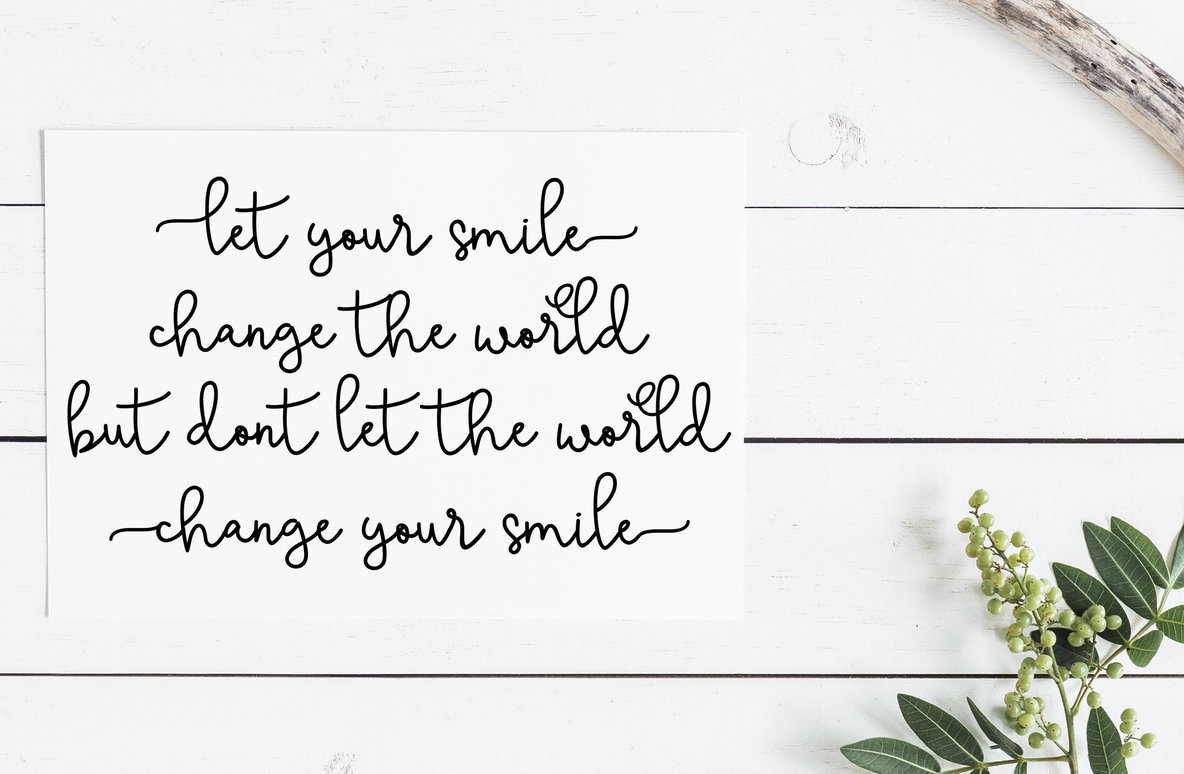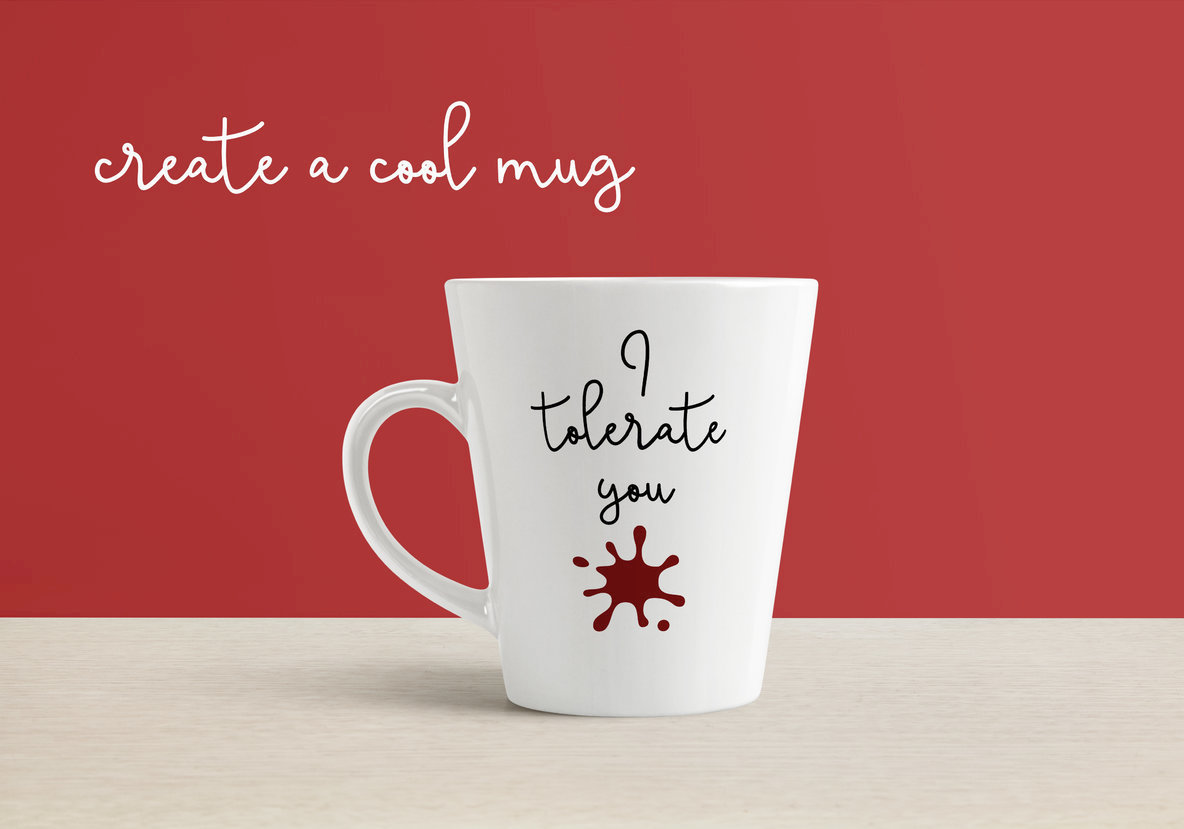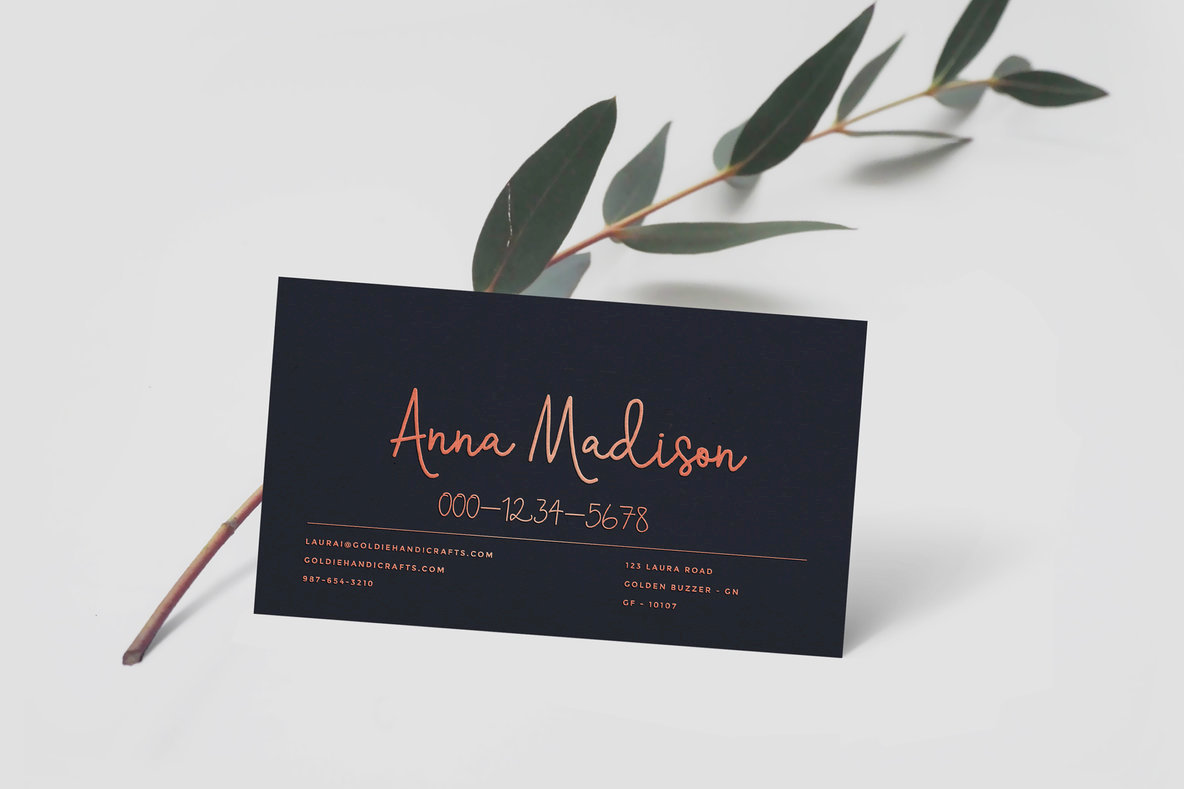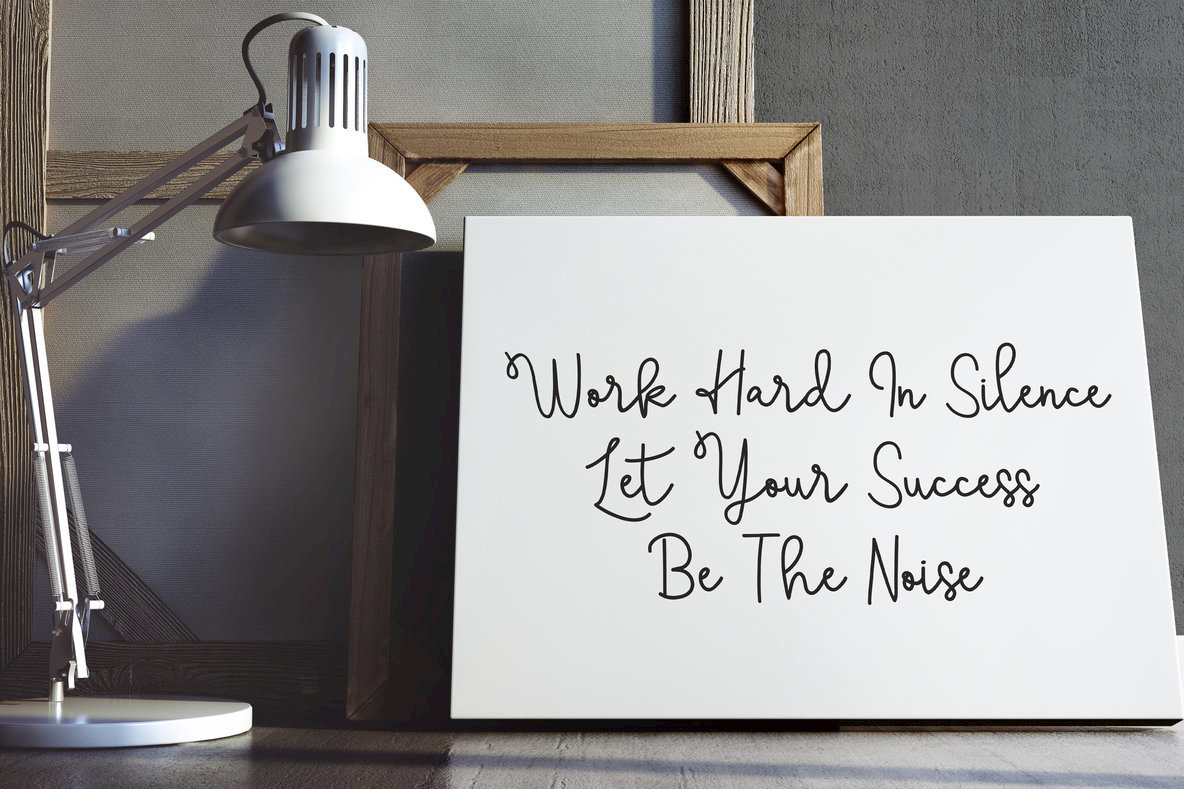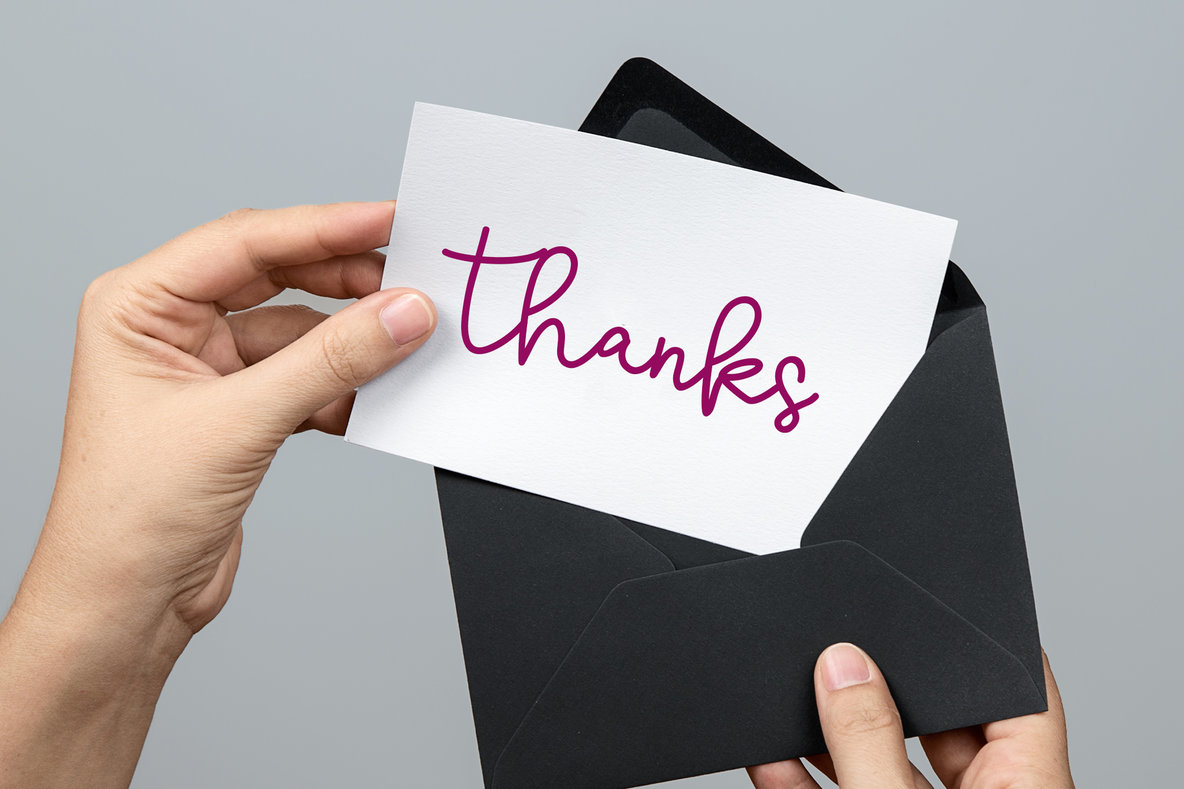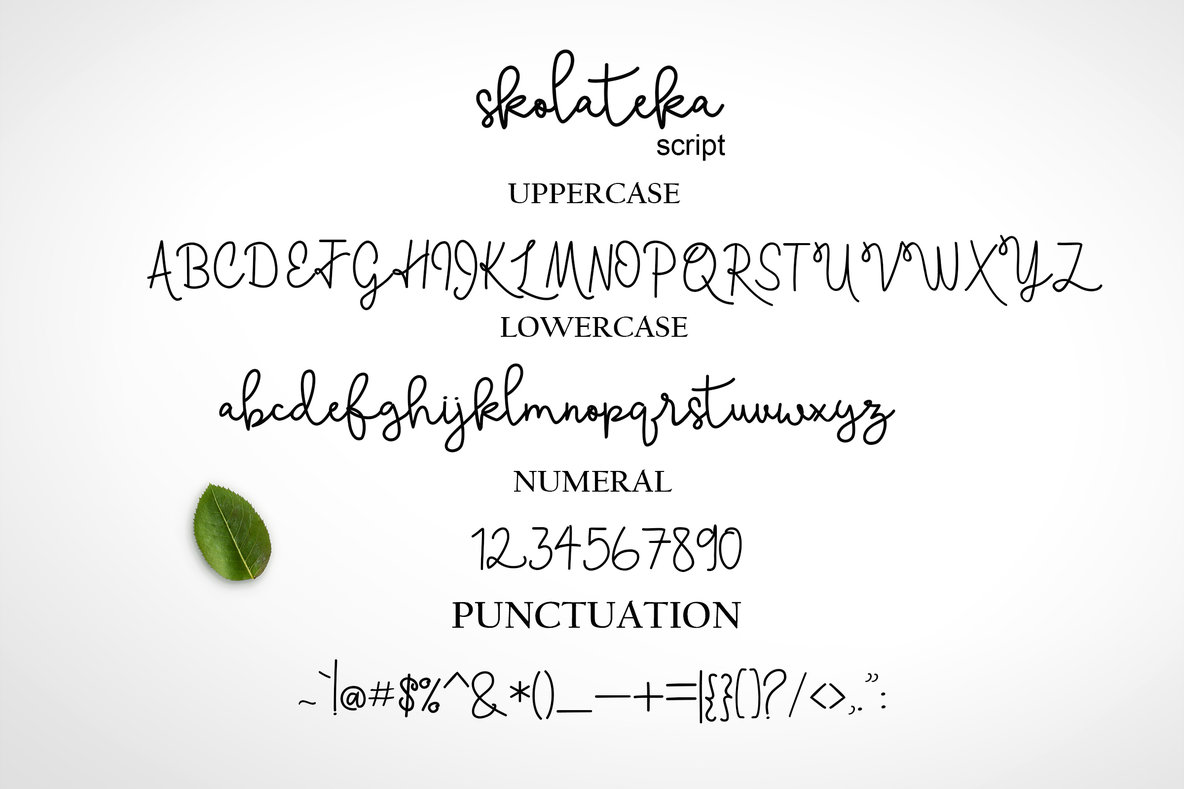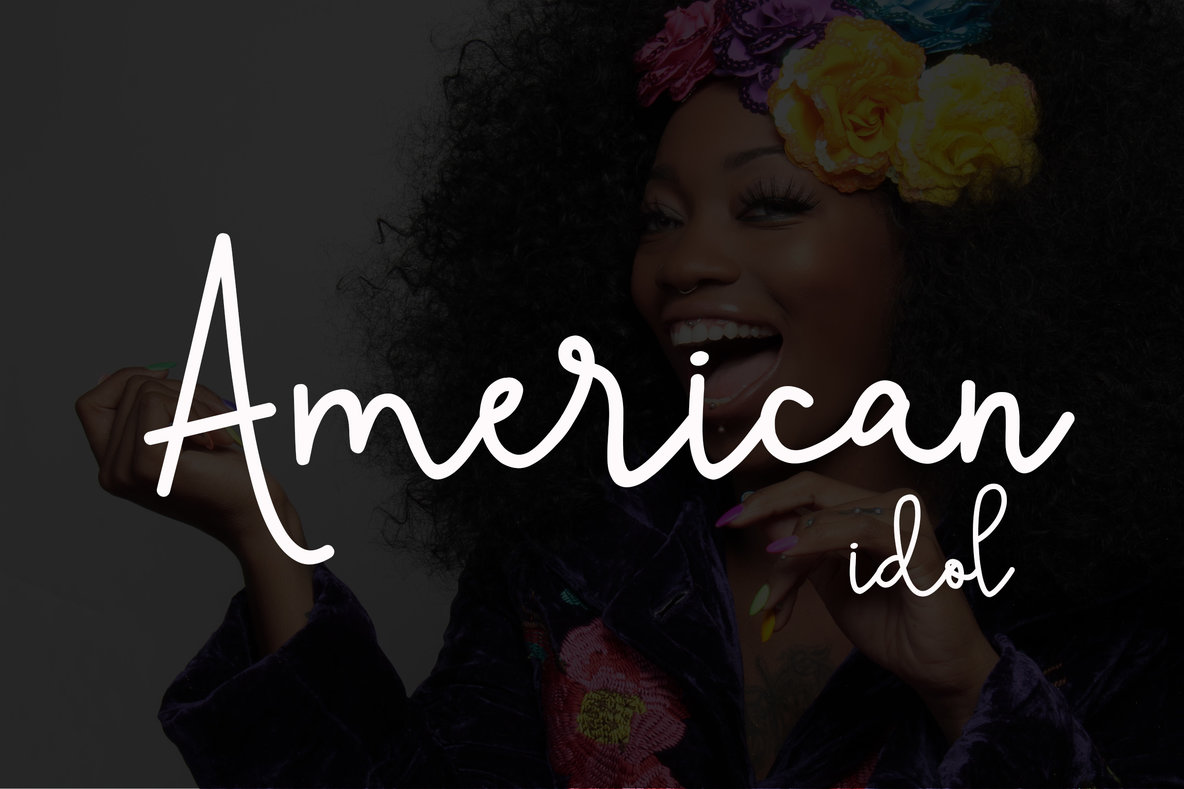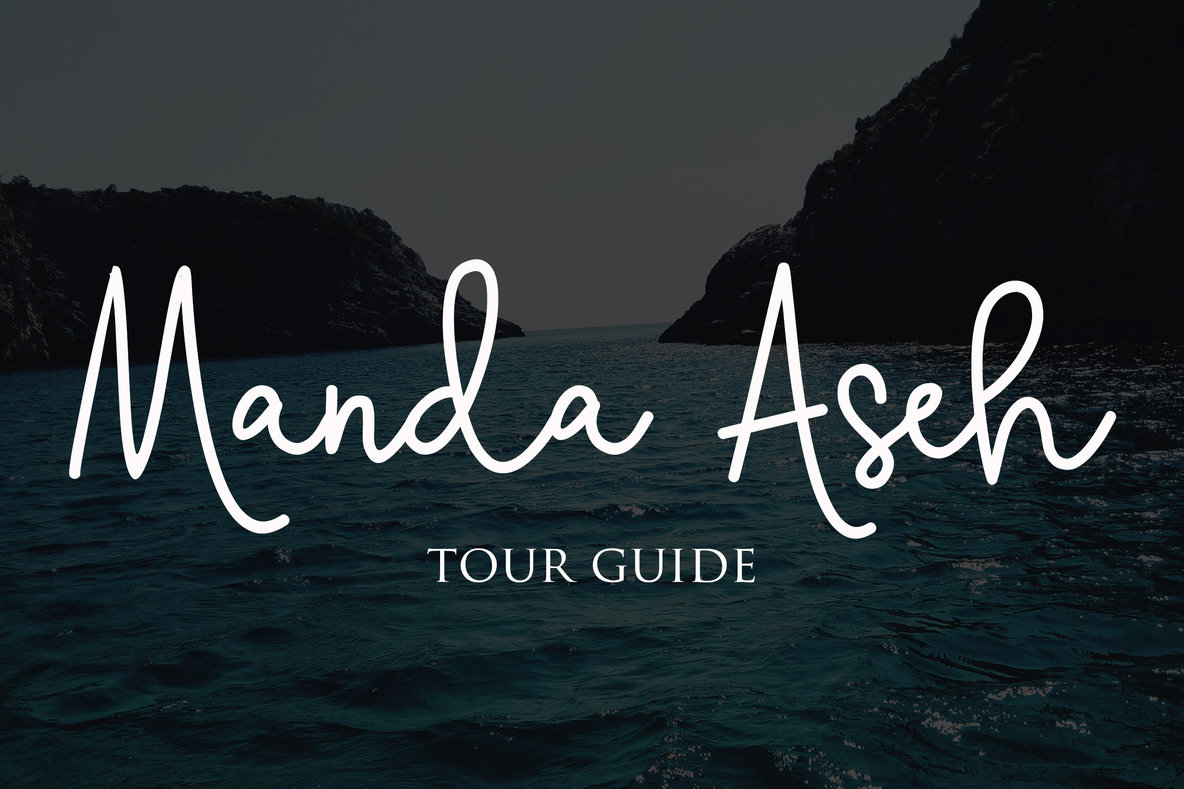
Skolateka Monoline Font
Skolateka Monoline
Capture the elegance of handmade typography with Skolateka Script, a captivating new addition to any designer's toolkit. This modern script font features a playful dancing baseline coupled with decorative characters, making it ideal for invitations, greeting cards, branding, business cards, quotes, and posters. Features: Skolateka Script's OpenType features are tailored for creative professionals using programs like Adobe Illustrator, Adobe InDesign, Adobe Photoshop, Corel Draw, and Microsoft Word. For those without these programs, accessing alternate glyphs is still possible through Font Book on Mac or Character Map on Windows. Expand your design possibilities with Skolateka Script and enrich your projects with its unique style.Skolateka Script: A Handcrafted Monoline Font